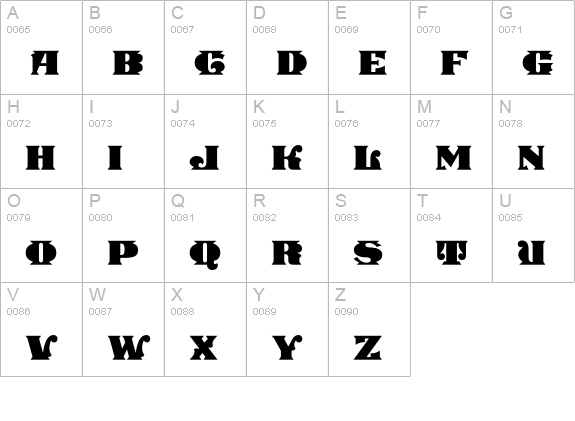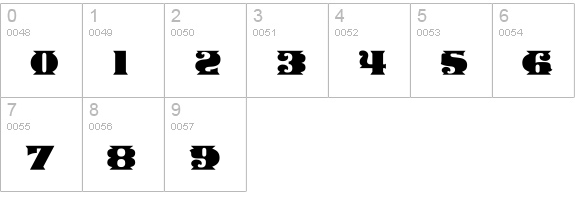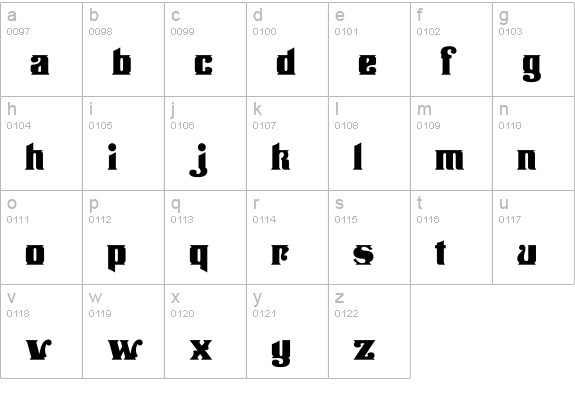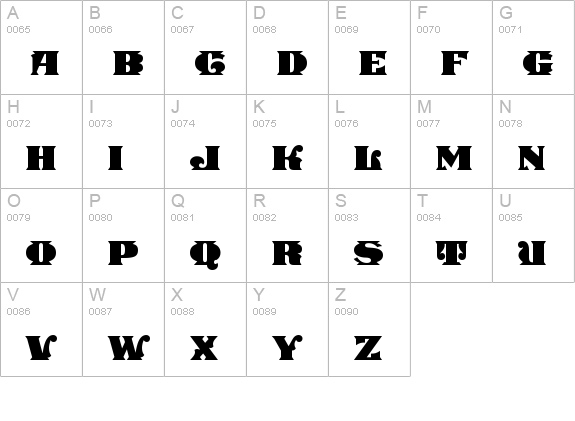
Stampede Open Fill Font Details
Introducing Stampede Open Fill font, a stunning typeface that combines elegance and boldness in perfect harmony. This versatile font is perfect for a wide range of creative projects, from eye-catching headlines to stylish logos and everything in between. Stampede Open Fill font features intricate details and a unique design that effortlessly captures attention. Its carefully crafted letterforms exude a sense of strength and confidence, making it ideal for projects that require a powerful impact. One of the standout features of Stampede Open Fill font is its versatility. It seamlessly adapts to various design styles, whether you're going for a modern and sleek look or a vintage and nostalgic vibe. This font can easily elevate your designs and add a touch of sophistication. What's even better is that Stampede Open Fill font is available for free download at FontsMarket.com. Yes, you read that right – this exceptional font can be yours without spending a dime. Simply visit FontsMarket.com and start exploring the world of possibilities that this font opens up for your creative endeavors. Whether you're a professional designer looking to add a unique touch to your projects or an aspiring creative seeking to make a statement, Stampede Open Fill font is a must-have in your font collection. With its striking aesthetics and free availability, this font is a true gem that will undoubtedly enhance your design work. Don't miss out on this opportunity – download Stampede Open Fill font today and let your creativity run wild.